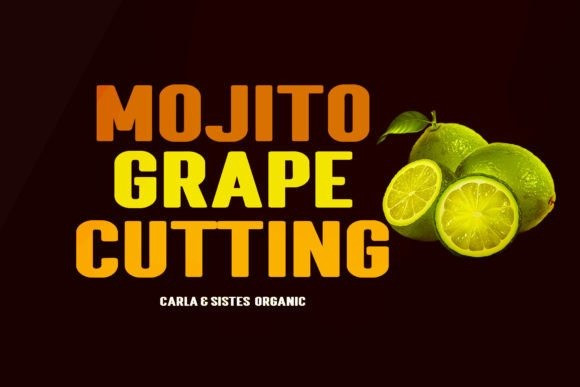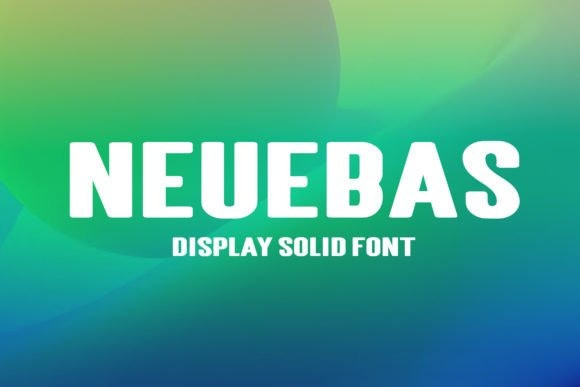
Neuebas Font
Neuebas Font is a modern, sleek sans display font. Use it to create unique t-shirt designs, posters, digital designs, headlines, cards, and many more.